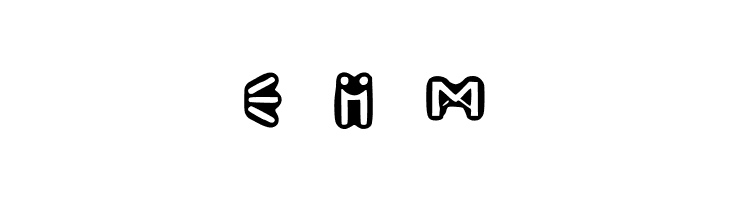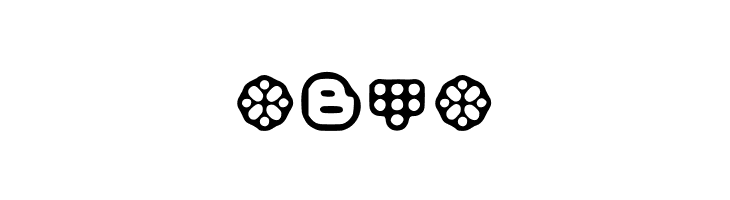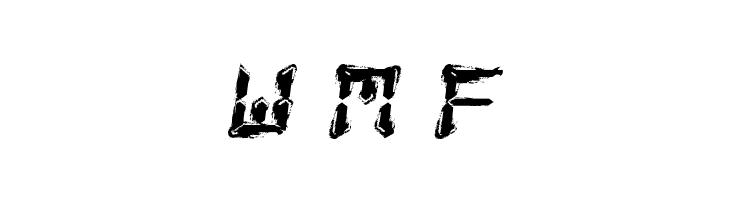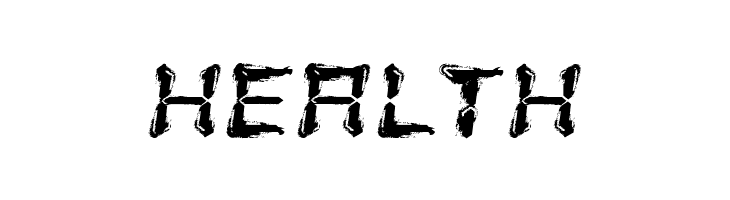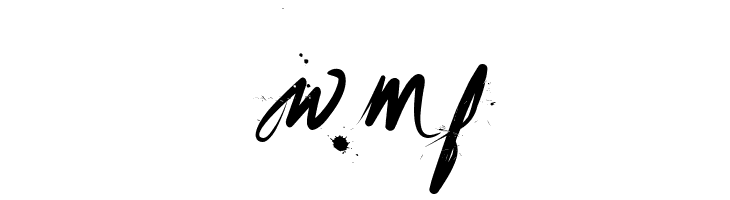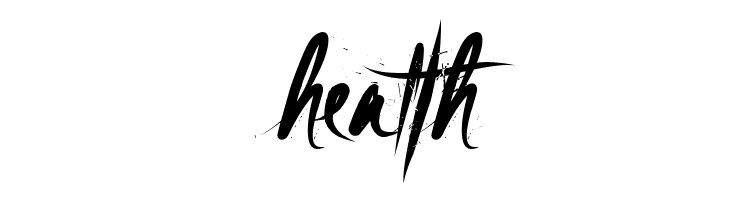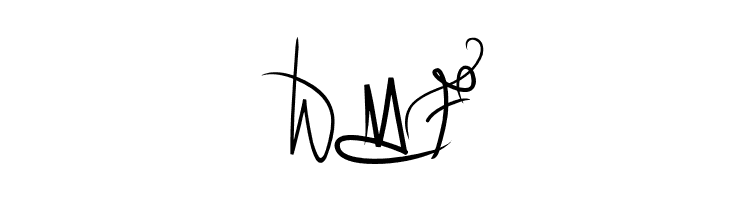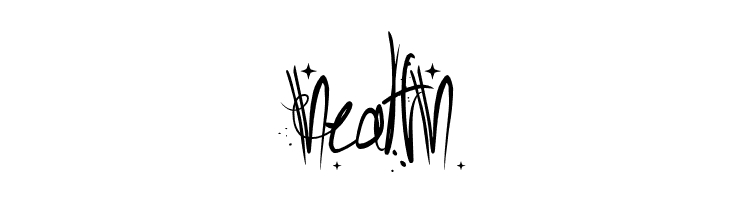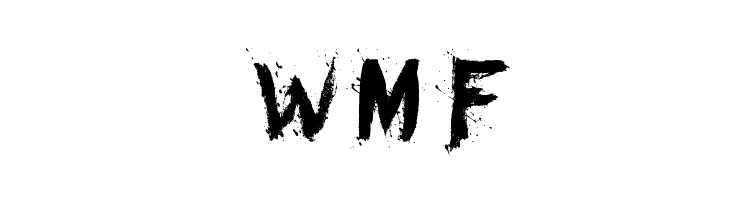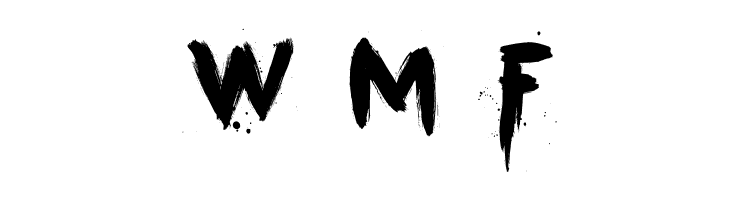
Outlined, rounded icons representing various social media and web platforms.
Bold, rounded icons for social media and communication platforms.
A fluid, dynamic font with an organic, liquid-like appearance.
A bold, textured, and expressive font with a hand-drawn style.
A graffiti-inspired font with chaotic, energetic, and highly stylized characters.
A bold, brush-style font with a raw, expressive aesthetic.
A bold, grungy brush-style font with a distressed texture.